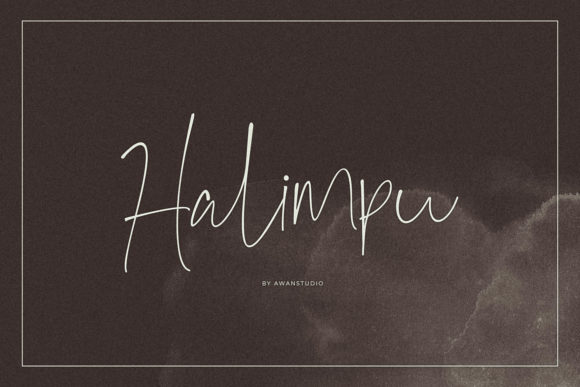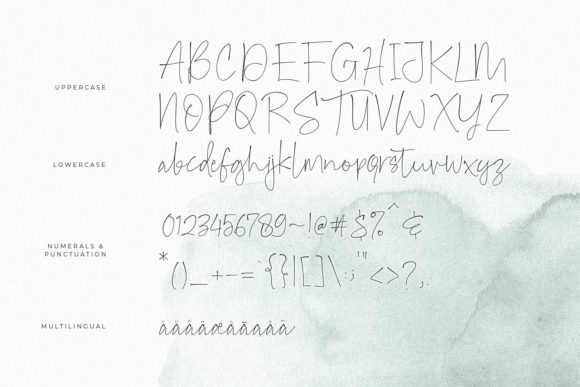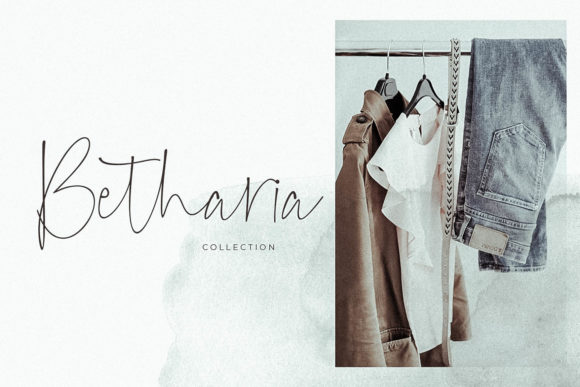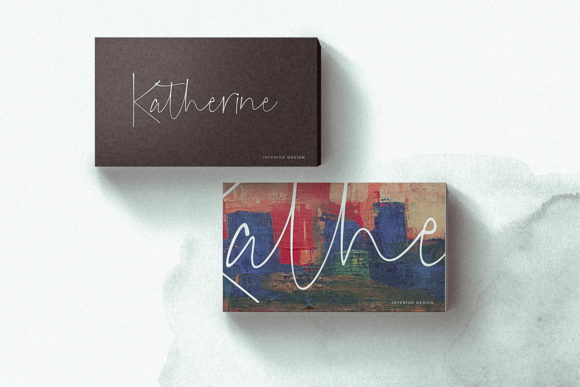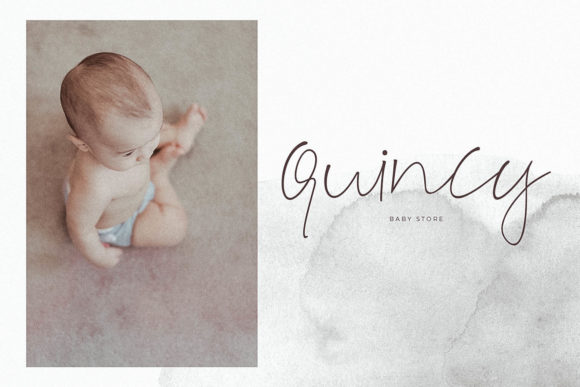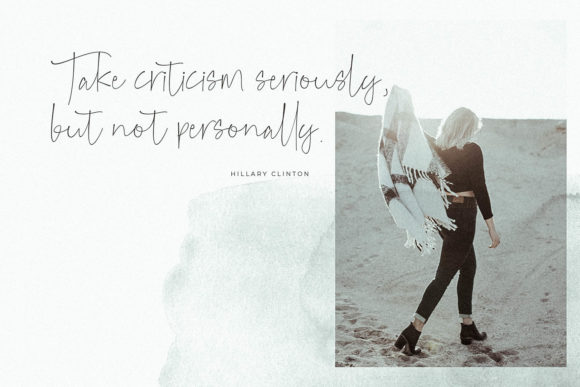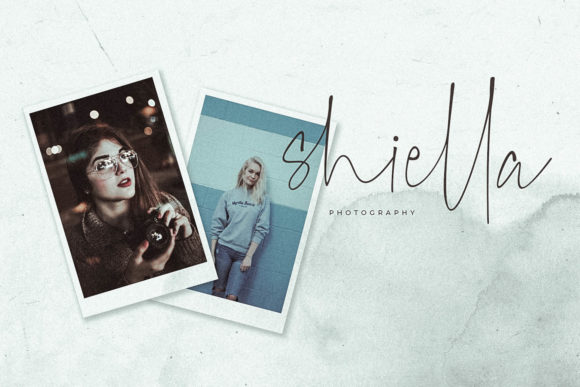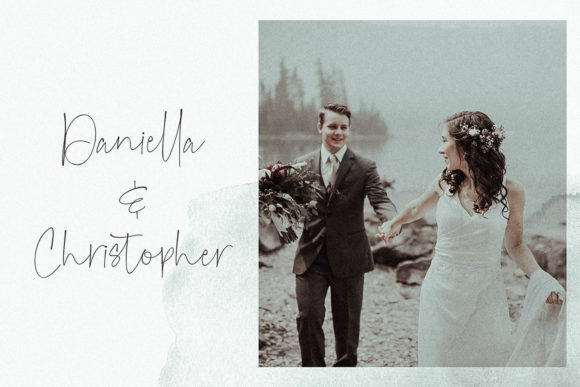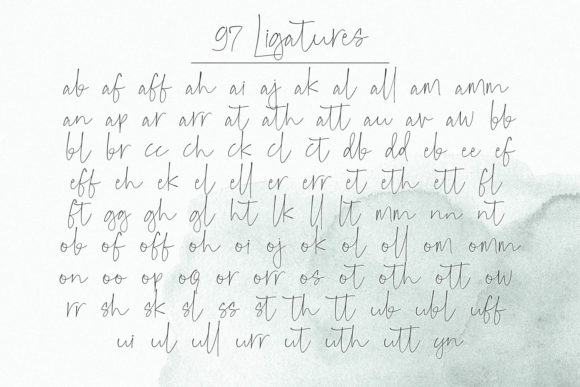
Halimpu Font
About Halimpu Font
Halimpu is a stunning handwritten font with an incredible feel. Use it to add a cool and contemporary vibe to any design project!